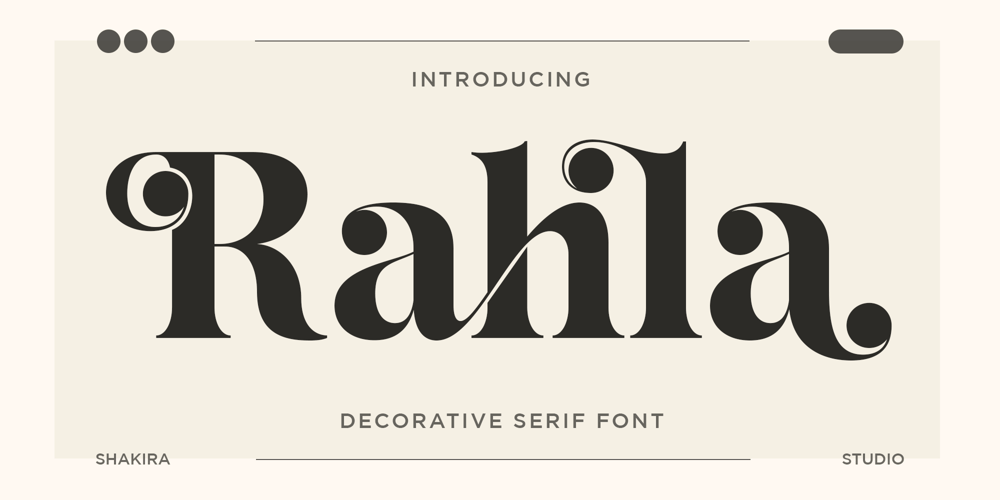
Rahla
Rahla font
Rahla Font Family was designed by Idhham Cholid Rikzano Yahya and published by Shakira Studio. Rahla contains 2 styles and family package options. Introducing “Rahla” a font that defines the epitome of Beauty Modern Serif Display.This captivating typeface transcends conventions, offering a perfect blend of contemporary aesthetics and timeless beauty. “Rahla” stands out with its exquisite serifs and sleek details, making it the ideal choice for those seeking a modern yet elegant typographic solution.Unleash your creativity with the diverse alternates and ligatures that “Rahla” provides, allowing you to infuse a touch of individuality and style into your designs. This font goes beyond being a mere typeface; it’s a visual journey that seamlessly combines modern flair with enduring sophistication.Elevate your projects with the graceful and stylish aesthetics of “Rahla,” setting a new standard for Beauty Modern Serif Display fonts in today’s design landscape.Here’s what you get: Regular & Italic All Multilingual symbol Opentype features ( ligature, alternate ) Accessible in the Adobe Illustrator, Adobe Photoshop, Adobe InDesign, even work on Microsoft Word. PUA Encoded Characters – Fully accessible without additional design software. Multilingual character supports : (Afrikaans, Albanian, Catalan, Croatian, Czech, Danish, Dutch, English, Estonian, Finnish, French, German, Hungarian, Icelandic, Italian, Lithuanian, Maltese, Norwegian, Polish, Portuguese, Slovenian, Spanish, Swedish, Turkish, Zulu)Follow my shop for upcoming updates, and for more of my work,Thank you!